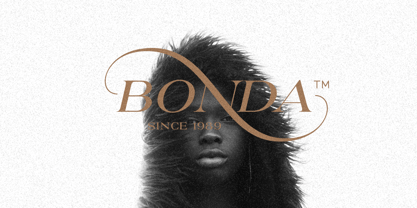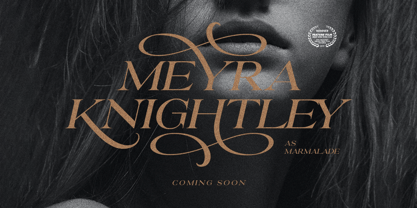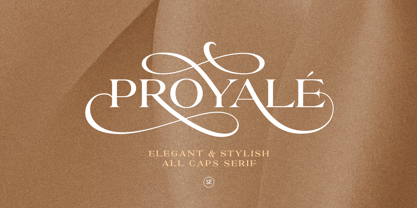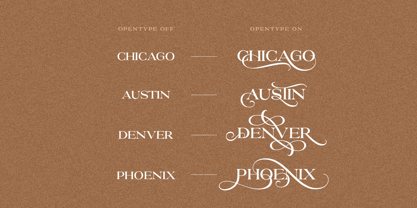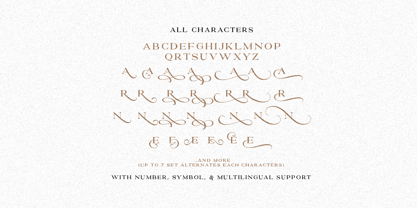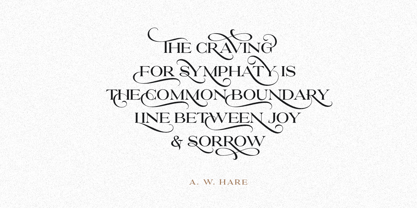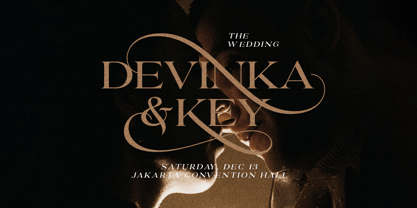
Proyale
by Sarid Ezra
The Proyale Font Family was designed by Sarid Ezra and published by Sarid Ezra. Proyale contains 2 styles and family package options. More about this family
Proyale is a classic, elegant and styish all caps serif with a bunch of alternates up to 7 stylish set for each characters that will make your presentation or logo even more stunning and stand out! You can use this captivating font for many purpose such as magazine, branding, poster, or even for wedding invitation. Proyale also support Multi Language.